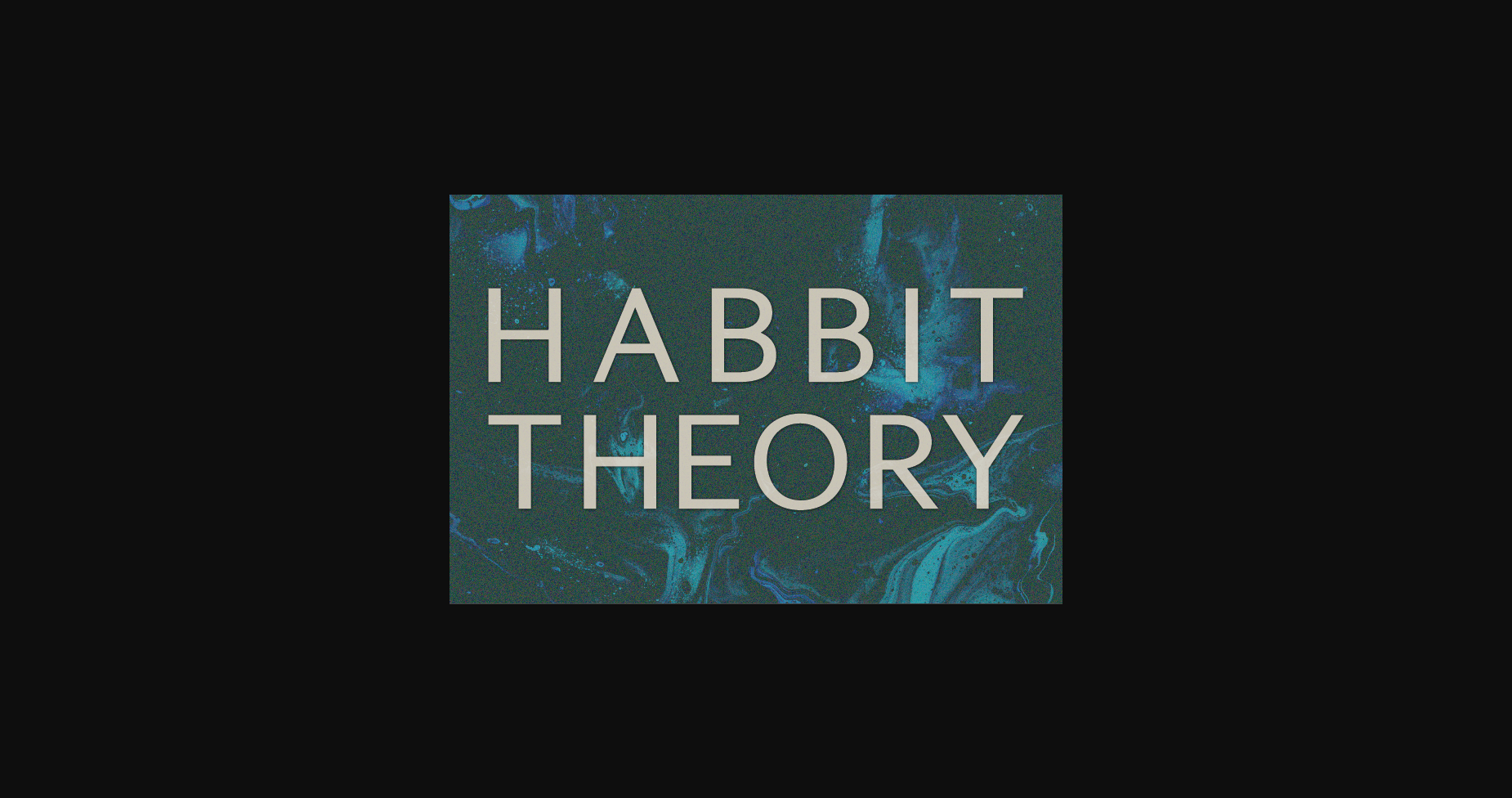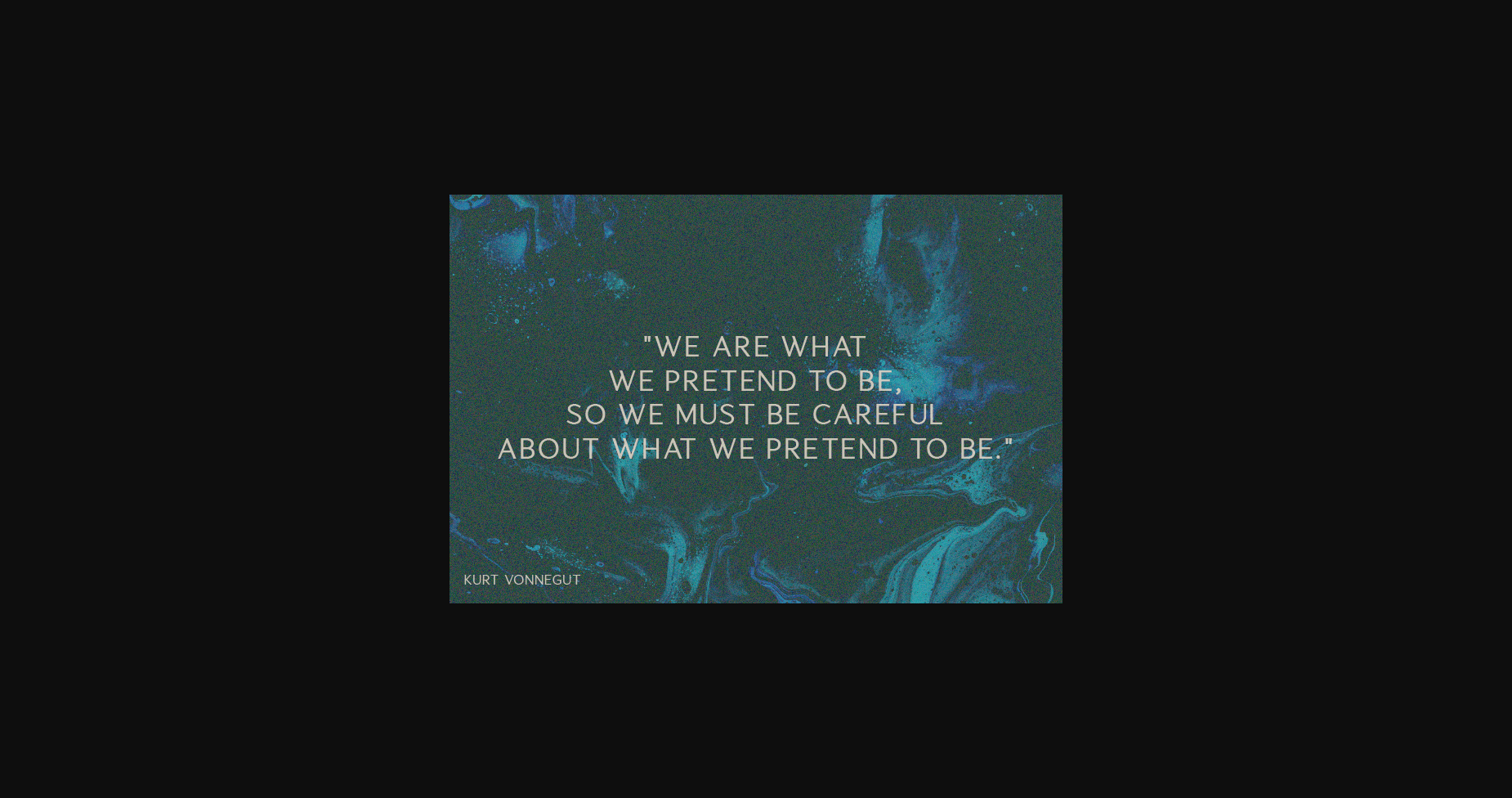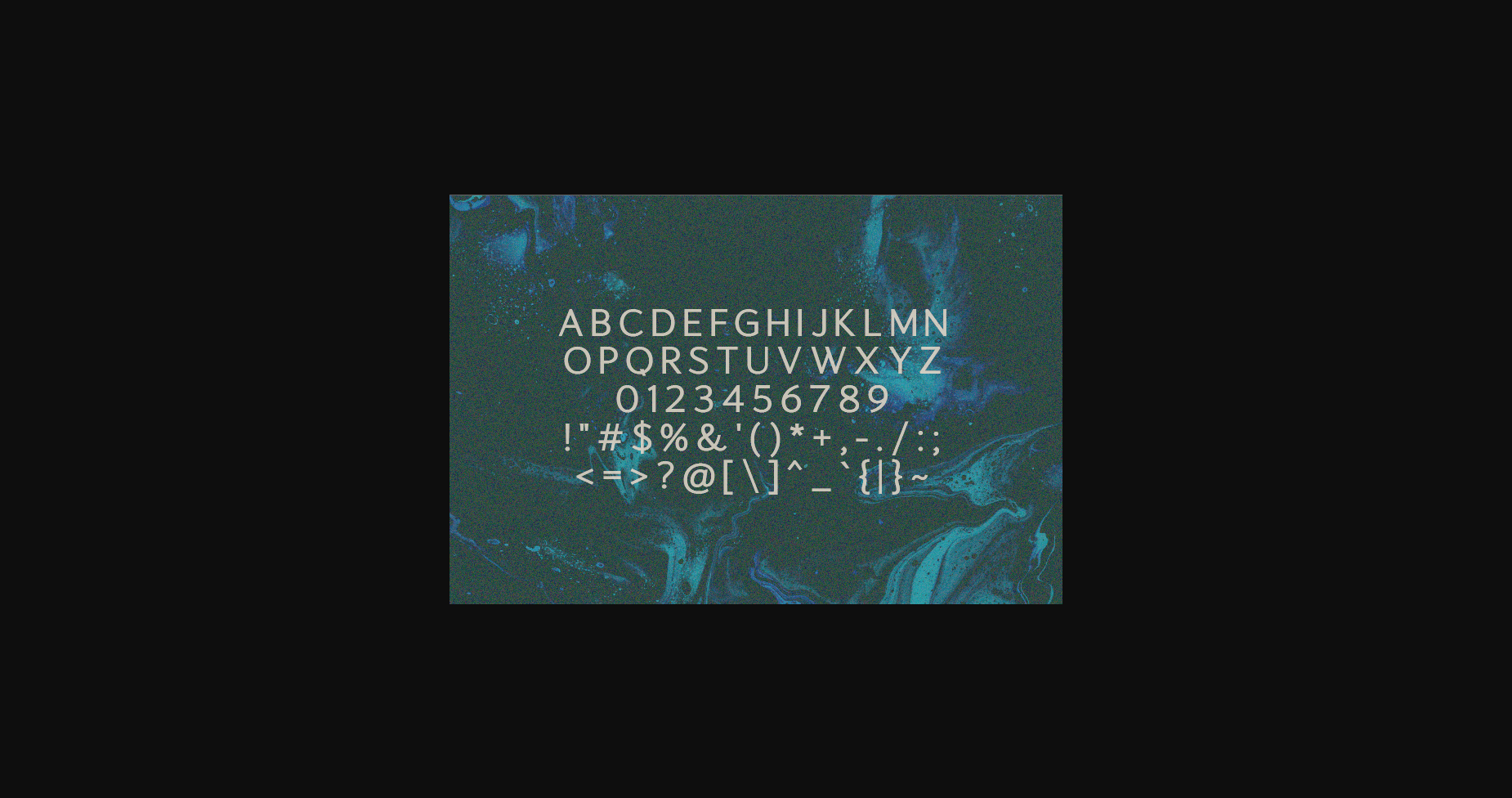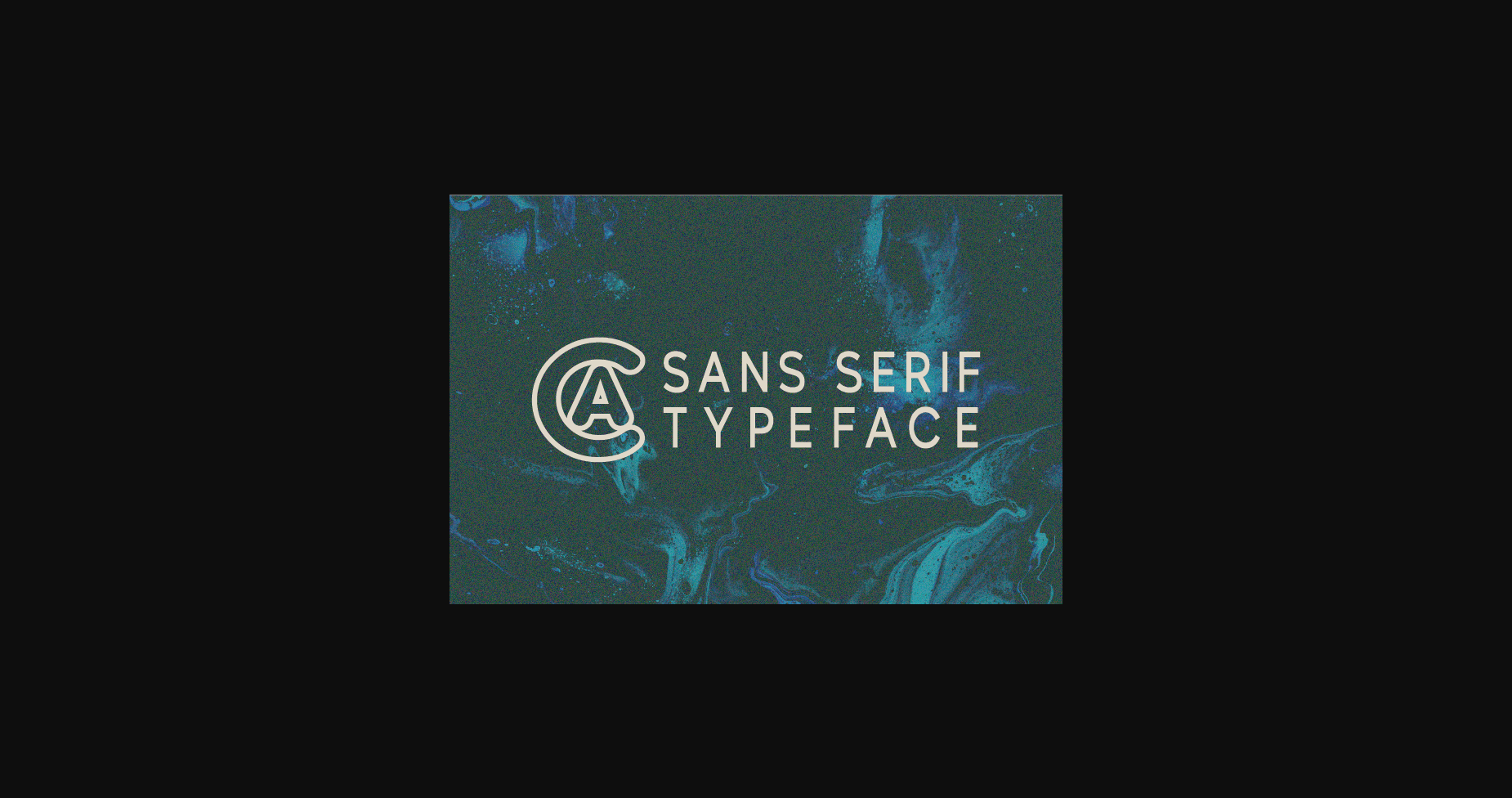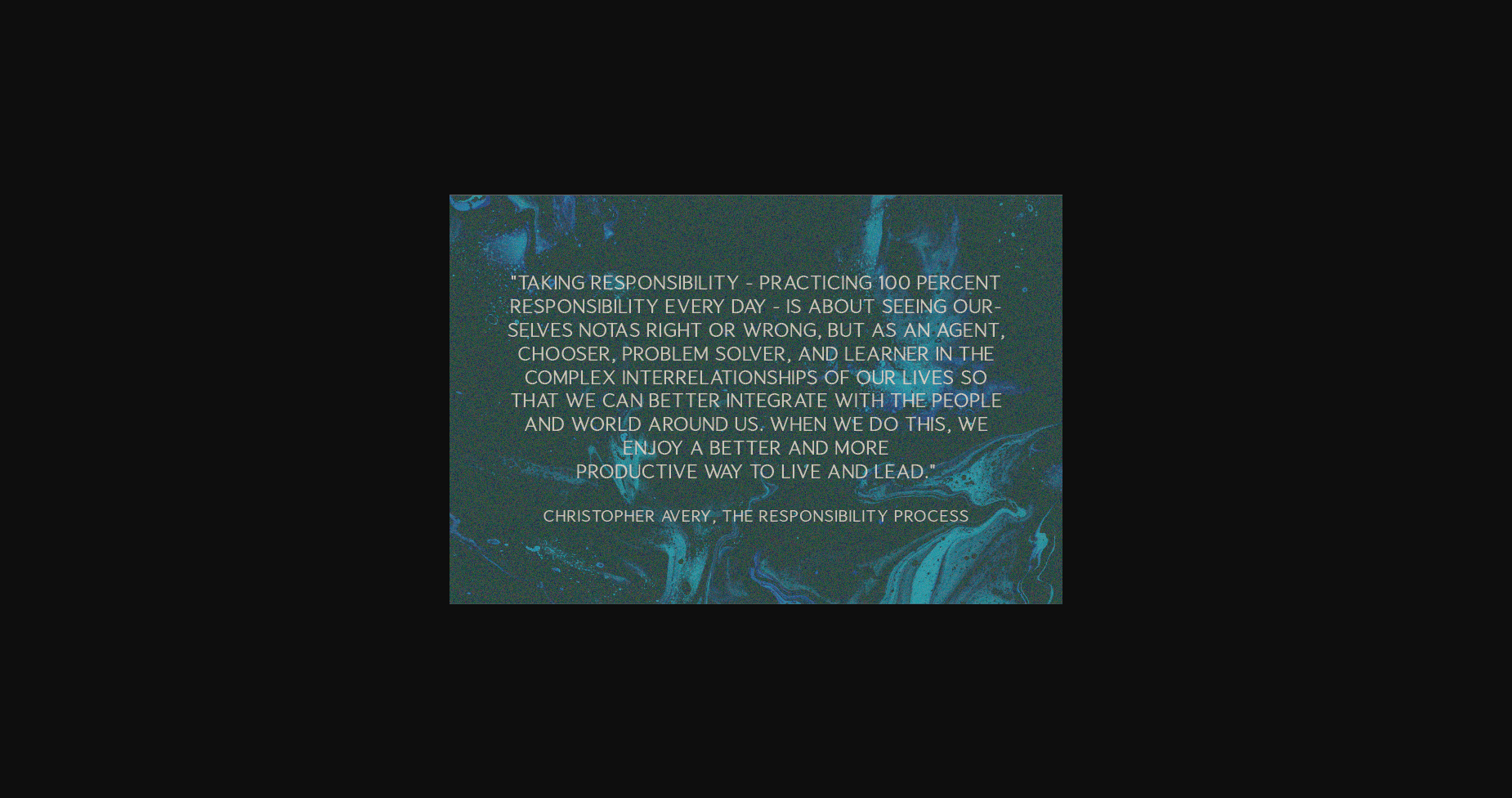
Habbit Theory Font
About Habbit Theory Font
Habbit Theory is a modern, classy sans serif typeface. Extremely versatile, this typeface is perfect for logos, weddings, invitations, quotes, advertisements, print, magazines, and more!